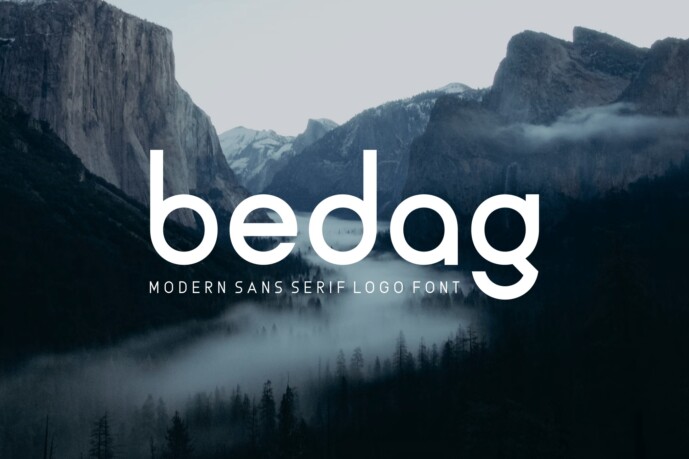
Bedag Font
Designer: suryadesign0
Introducing our new product Bedag Font – Modern Font
Bedag Font– Modern Font is a bold and authentic display font. The font is suitable for any branding project like logo, t-shirt printing, esport, and many more. outstanding in a wide range of contexts.